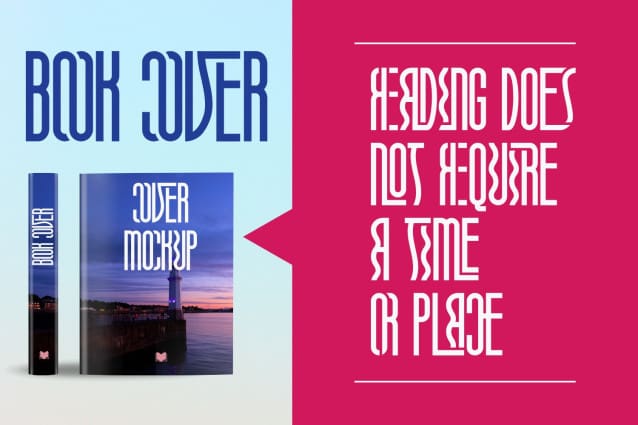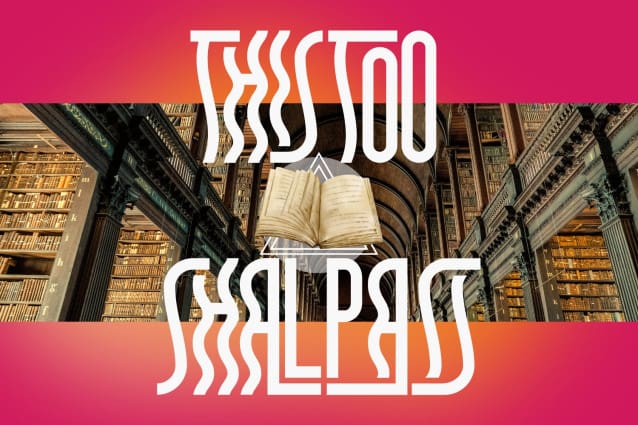
Imagination Font
Imagination Font is a condensed, wavy display face, it was designed with a synthesis of the future and the past. While it carries sharper and futuristic lines than the future, it also incorporates the organic structure of the past. The font is suitable for any branding project like logo, t-shirt printing, sporting design, and many more. It will look assertive in a wide range of contexts.
imagination Font was built with OpenType features and includes 100 ligatures, alternate, numbers, punctuation, and it also supports other languages.
AC AD AL AN AR AS AT AU AV BE CA CE CH CO CT DE DI EA EC ED EE EL EM EN EP ER ES ET FE FO FR GE HA HE HI HO IE IC IL IN IO IR IS IT JU KE LA LE LI LL LO LY MA ME MI NC ND NE NG NO NT NS OC OF OM ON OO OP OR OT OU OW PA PR RA RD RE RI RO RS RT SE SH SI SO SS ST TA TE TH TI TO TR TT UM UN UR VE WI WO